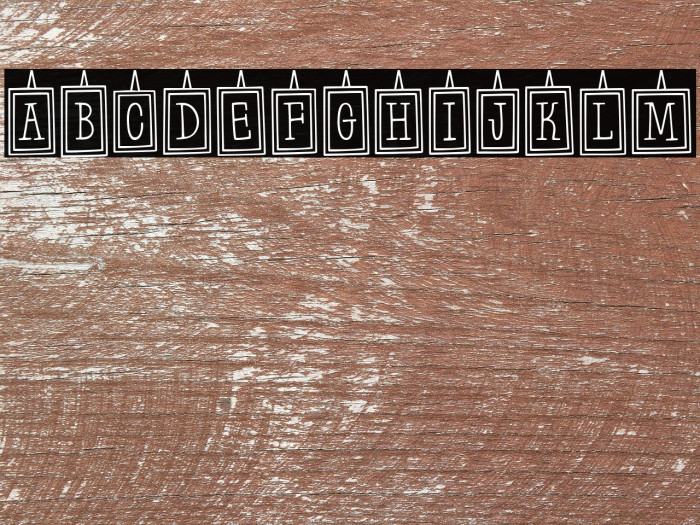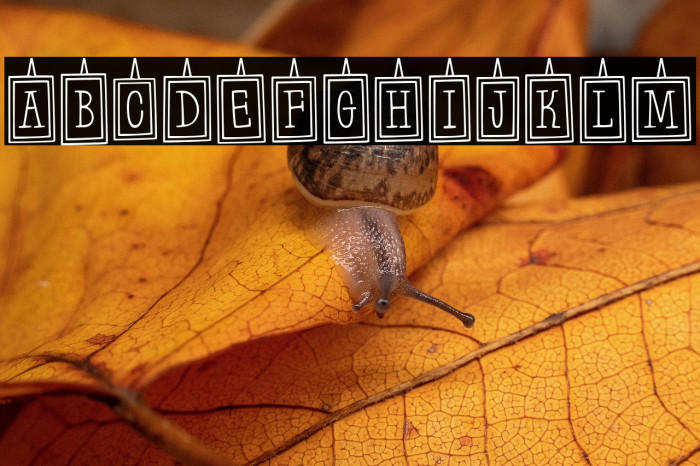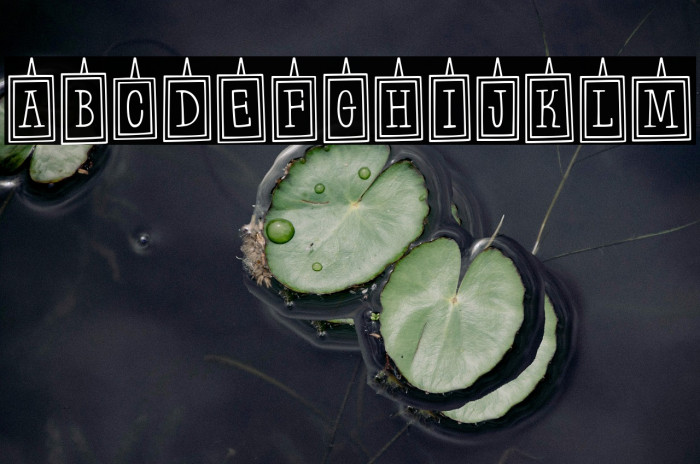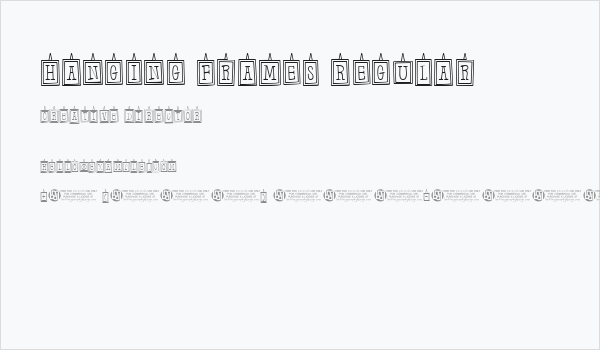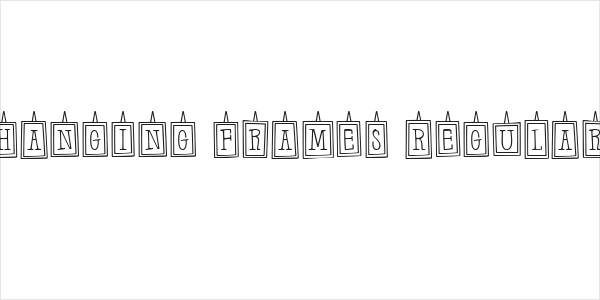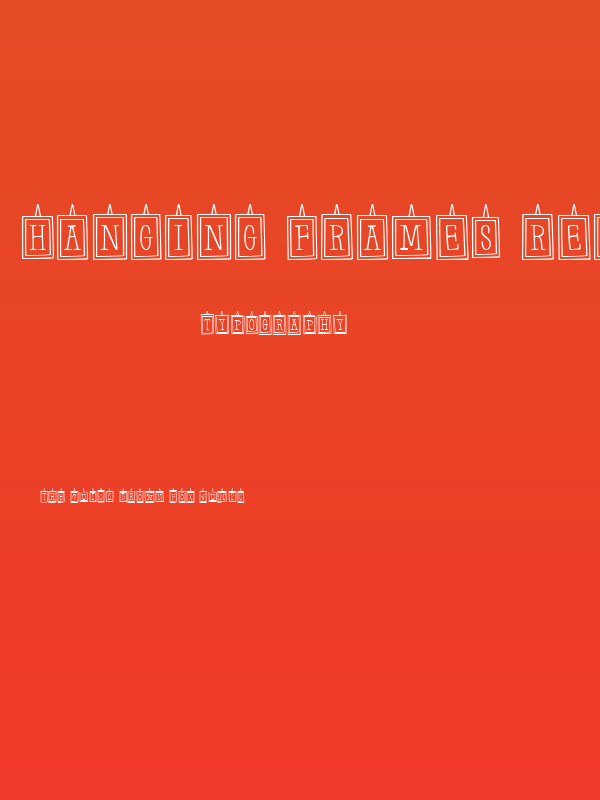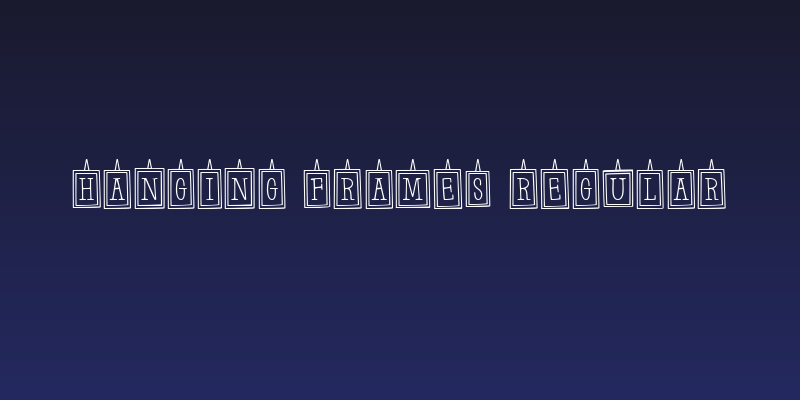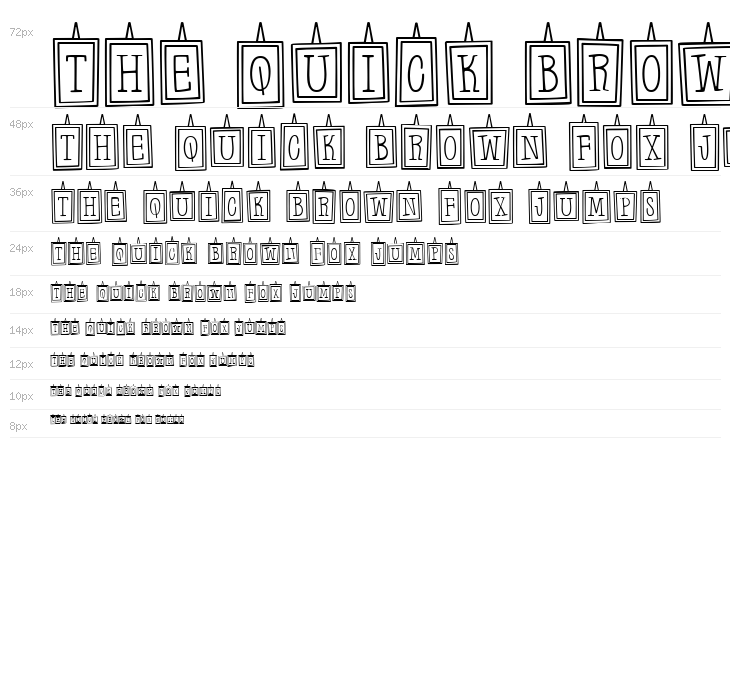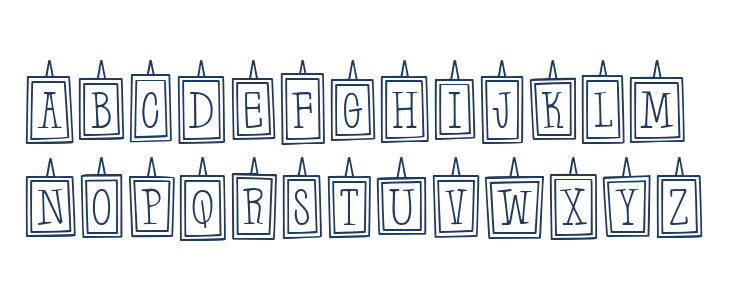
Hanging Frames Regular Font
Hanging Frames Regular Description
This font features characters enclosed in stylized frames, giving the appearance of letters hanging on a wall. Each letter is centered within a rectangular frame with a small hook at the top, adding a playful and decorative touch. The characters themselves are bold and slightly rounded, providing a clear and legible appearance. The overall design is whimsical and artistic, making it suitable for creative projects. The font maintains consistent spacing and alignment, ensuring readability while adding a unique visual element.
Proposed ProjectsIdeal for creative projects such as posters, children's books, event invitations, and decorative signage.